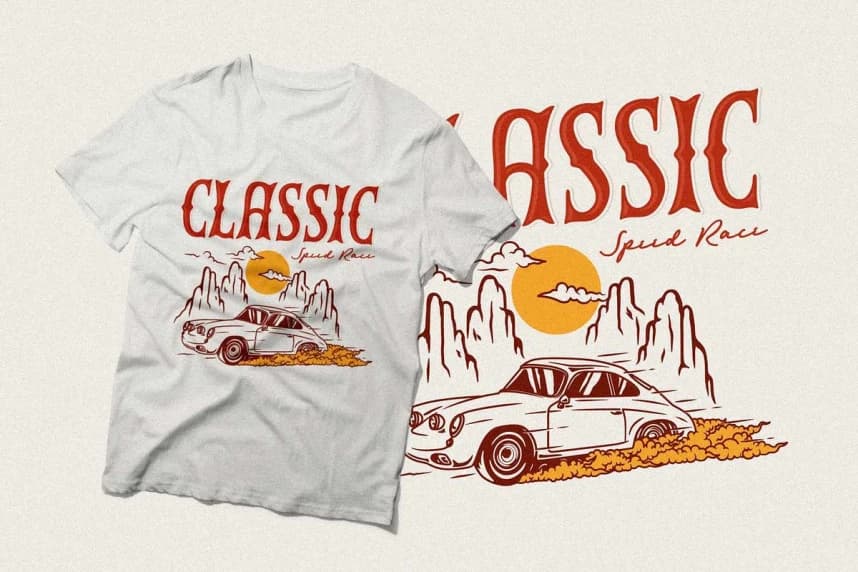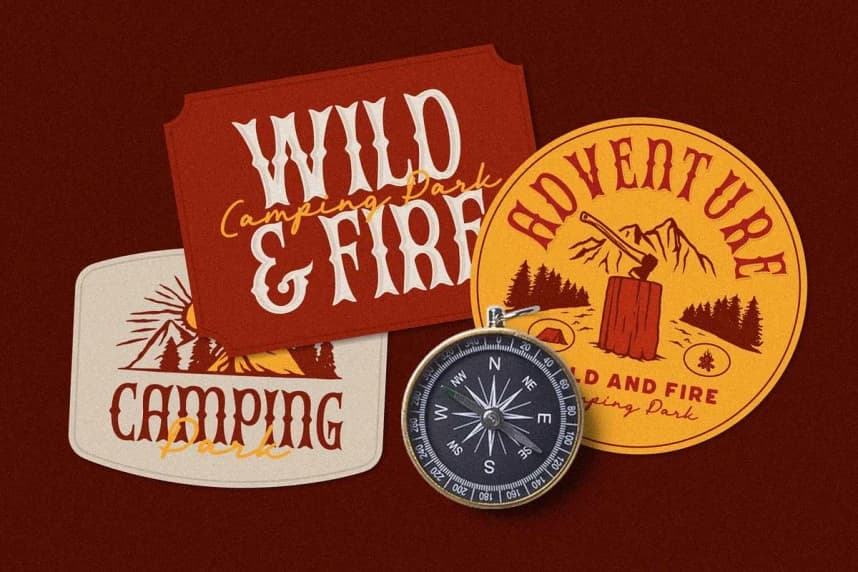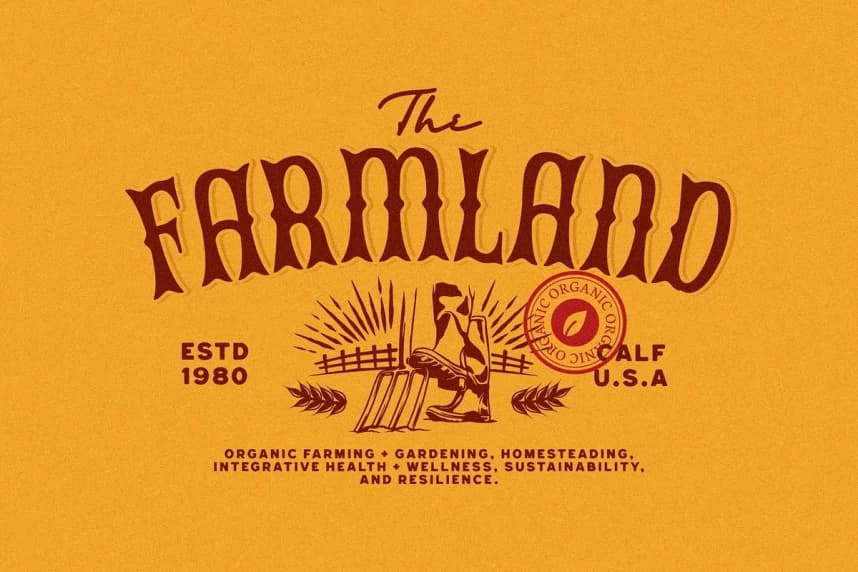
Biokes Vintage Font
Biokes Vintage Font is a vintage display font with a strong retro vibe, perfect for designs that want to evoke nostalgia and rugged charm. Its distinctive, slightly distressed serif letterforms feature uneven edges and quirky curves, giving it a hand-crafted, old-school feel.